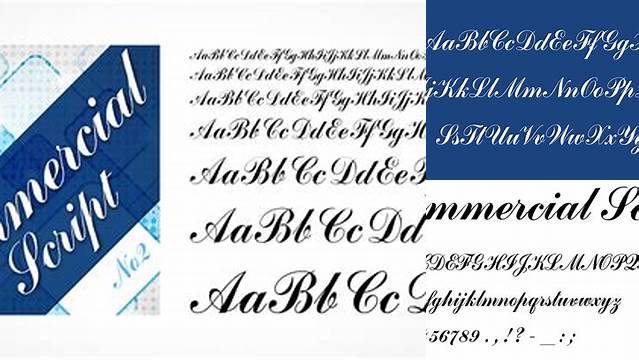
Hey guys! Are you on the hunt for the perfect font to give your projects that elegant, handwritten touch? Look no further! Today, we're diving deep into the world of Commercial Script No2, a font thatâs both timeless and versatile. Whether you're designing invitations, logos, or website headers, this font might just be the missing piece youâve been searching for. So, let's explore everything about this beautiful font and how you can get your hands on it for free.
Commercial Script No2 Font: An Overview
Before we jump into the download details, let's talk about what makes Commercial Script No2 so special. This font is known for its flowing, cursive style that mimics natural handwriting. It adds a touch of sophistication and personality to any design, making it a popular choice for a wide range of projects. Think of wedding invitations, branding materials, and even book covers â the possibilities are endless! Its elegant strokes and refined curves give it a classic yet contemporary feel, suitable for both digital and print applications. So, if you're aiming for a design that exudes class and charm, Commercial Script No2 might be the perfect fit for you.
What is Commercial Script No2 Font?
Commercial Script No2 is a typeface that falls into the category of script fonts. Script fonts, as the name suggests, are designed to resemble handwriting. They often have connected letters and flowing strokes, giving them a natural and personal feel. Commercial Script No2, in particular, is characterized by its elegant and slightly formal appearance. It's not too casual, making it suitable for projects where you want to convey a sense of sophistication. Imagine using it for the heading of a formal invitation or the logo of a high-end brand. The beauty of Commercial Script No2 lies in its ability to blend traditional elegance with a modern touch, making it a versatile choice for various design needs.
History and Origin of Commercial Script No2 Font
To truly appreciate a font, it's helpful to know its history. The origin of Commercial Script No2 can be traced back to the world of calligraphy and traditional penmanship. While the exact designer and the year of its creation might be a bit elusive, its style reflects the classic script fonts that were popular in the early to mid-20th century. These fonts were often used in advertising, signage, and personal correspondence. Commercial Script No2 embodies the elegance and craftsmanship of that era, bringing a touch of vintage charm to contemporary design projects. Understanding its roots helps you use it more effectively, ensuring your designs resonate with the intended audience.
Key Features and Characteristics of Commercial Script No2 Font
Let's break down the key features that make Commercial Script No2 stand out. First off, it's the flowing, connected letters that create a sense of continuity and rhythm. The strokes vary in thickness, mimicking the natural pressure of a calligrapher's pen. This variation adds depth and visual interest to the font. Secondly, Commercial Script No2 has elegant swashes and flourishes, which are those decorative strokes that extend from certain letters. These swashes add a touch of flair and can be used to emphasize specific words or create a focal point in your design. Finally, the overall balance and legibility of the font make it a practical choice, even for longer texts. So, you get both beauty and functionality in one package!
Design Applications for Commercial Script No2 Font
Where can you use Commercial Script No2? The possibilities are vast! This font shines in projects that require a touch of elegance and personalization. Think of wedding invitations, where it can add a romantic and sophisticated feel. It's also perfect for branding materials, such as logos and business cards, especially for businesses that want to convey a sense of luxury or craftsmanship. Commercial Script No2 works wonderfully for headings and titles in print materials like brochures and magazines. And don't forget digital applications â it can make your website headers and social media graphics stand out. Basically, if you need a font thatâs both beautiful and versatile, Commercial Script No2 is a fantastic option.
Commercial Script No2 Font Pairing Options
Choosing the right font pairing is crucial for creating a cohesive design. Commercial Script No2, being a script font, works best when paired with a clean and legible sans-serif or serif font. For a classic look, consider pairing it with a serif font like Garamond or Times New Roman. These fonts have a traditional feel that complements the elegance of Commercial Script No2. If you're aiming for a more modern vibe, try pairing it with a sans-serif font like Open Sans or Montserrat. These fonts have a clean and minimalist aesthetic that provides a nice contrast to the flowing script. The key is to choose a font that doesnât compete with Commercial Script No2 but rather complements it, ensuring your design is both visually appealing and easy to read.
How to Identify Commercial Script No2 Font
Ever come across a font and wondered what it is? Identifying Commercial Script No2 is relatively straightforward, thanks to its distinctive features. Look for the flowing, connected letters and the elegant swashes. The varying stroke thickness is another telltale sign. If you have an image of the font, you can use online font identification tools. These tools allow you to upload an image, and they'll analyze the font and suggest possible matches. Some popular tools include WhatTheFont and Font Matcherator. You can also try browsing font libraries and filtering by script fonts to see if Commercial Script No2 catches your eye. With a little practice, you'll become a pro at spotting this elegant typeface!